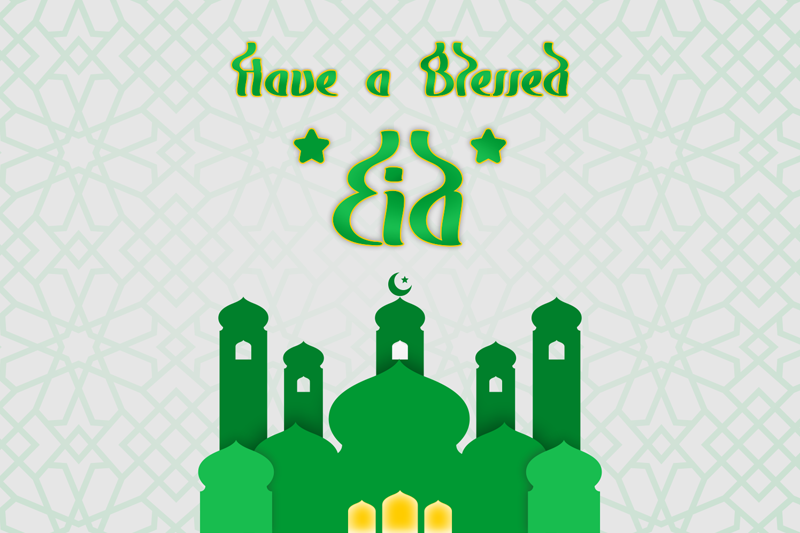
Preview and download Eid Fitr Font. Created by Nuryanto Dwi in Foreign look Arabic styles with Free for personal use license.
Eid Fitr is an Arabic-style calligraphy font. It features an elegant, luxurious and modern style. Use this font to congratulate your friends, family and everyone you know. It will fit into a huge spectrum of designs! This font is FREE FOR PERSONAL USE ONLY! for commercial license click: https://www.creativefabrica.com/product/eid-fitr/ref/377367/ |